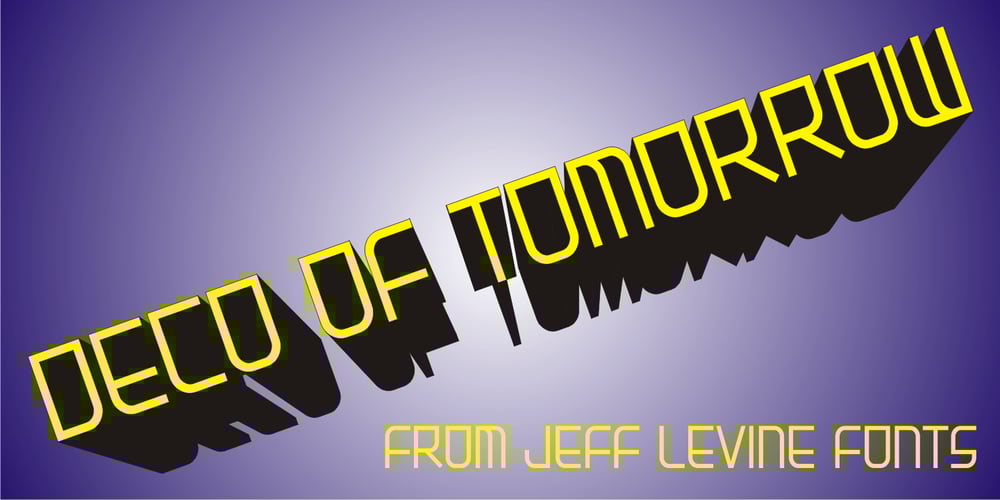
Deco Of Tomorrow JNL Font Family was designed by Jeff Levine and published by Jeff Levine. Deco Of Tomorrow JNL contains 1 styles and family package options. On occasion, when seeking retro source material for font designs, one can unearth interesting examples of typography that bridges decades with its ahead-of-its-time style. The songwriter credits on one particular piece of vintage sheet music had both the Art Deco influence but took on more of a techno look that was popularized in the 1980s. This hybrid of generations is the basis for Deco of Tomorrow JNL.